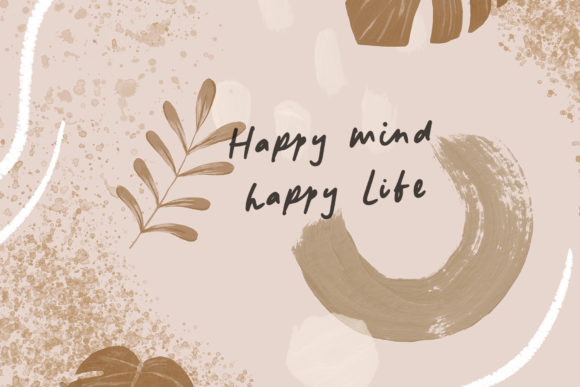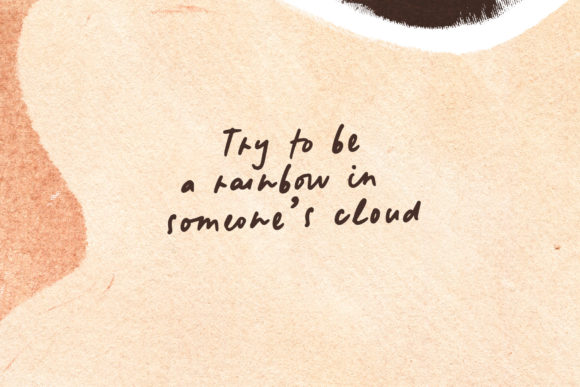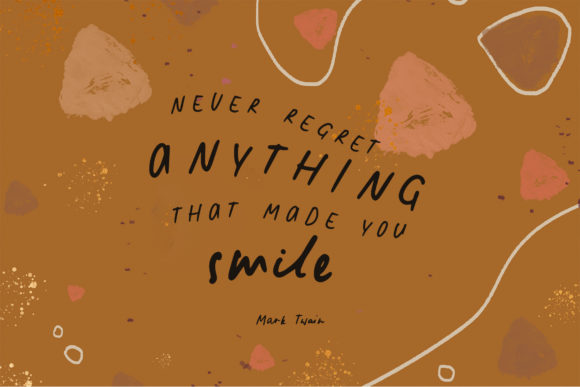
Introduction to Rejoicingly Font
Rejoicingly is a beautiful, well balanced and vintage styled script font.
It is defined by smooth curves and is perfect for fashion branding or editorial designs Add it confidently to your projects, and you will love the results.
Key Features of Rejoicingly Font
Why Choose Rejoicingly Font?
Rejoicingly Font offers exceptional quality and versatility, making it a valuable addition to your design toolkit. Whether you’re creating for personal projects or commercial use, Rejoicingly Font delivers professional results.